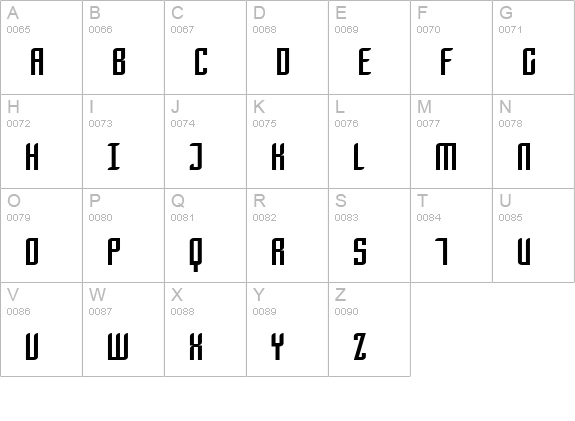
Introducing SF Piezolectric, a remarkable font that will electrify your designs with its sleek and modern aesthetic. This font is a true masterpiece, showcasing a perfect balance between elegance and innovation. SF Piezolectric is the embodiment of cutting-edge design, making it the go-to choice for any project that requires a touch of sophistication. The unique feature of this font lies in its piezolectricity-inspired design, which seamlessly combines sharp edges and smooth curves to create a visually striking impact. Each character is meticulously crafted, exuding a sense of precision and artistry that will captivate your audience. Whether it's for a logo, headline, or body text, SF Piezolectric guarantees to make a lasting impression. But what sets SF Piezolectric apart is not only its exceptional design but also its accessibility. This font is freely available to download at FontsMarket.com, allowing designers and creatives from all walks of life to access its remarkable features. With just a few clicks, you can add this font to your collection and unleash its full potential in your projects. SF Piezolectric is designed with versatility in mind. It effortlessly adapts to various design contexts, seamlessly blending into both digital and print mediums. Its sharp and clean lines make it perfect for modern and futuristic designs, while its legibility ensures optimal readability even at small sizes. With SF Piezolectric, you have the freedom to push the boundaries of your creativity while delivering a polished and professional outcome. In conclusion, SF Piezolectric is more than just a font; it's a work of art that elevates your designs to new heights. With its captivating design, accessibility, and versatility, this font is a must-have for any designer or creative looking to make a bold statement. Don't miss out on the opportunity to download SF Piezolectric for free at FontsMarket.com and unlock a world of endless possibilities for your next project.